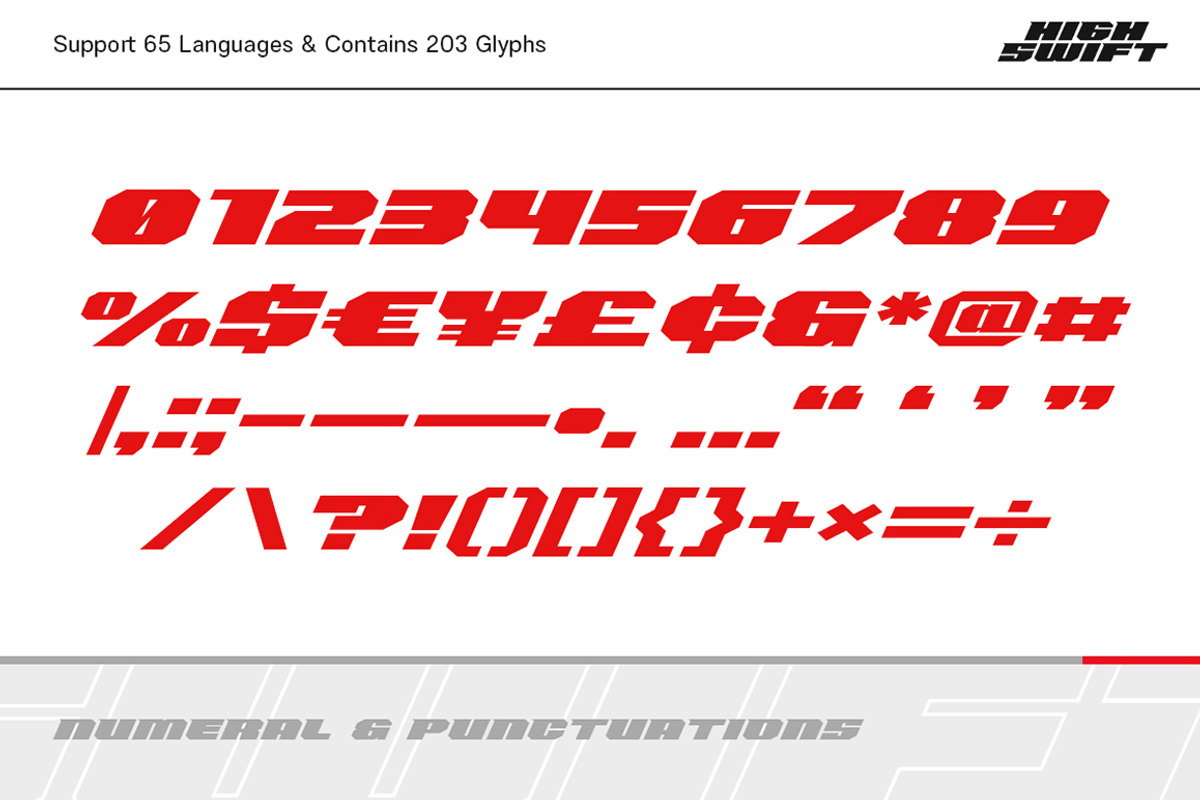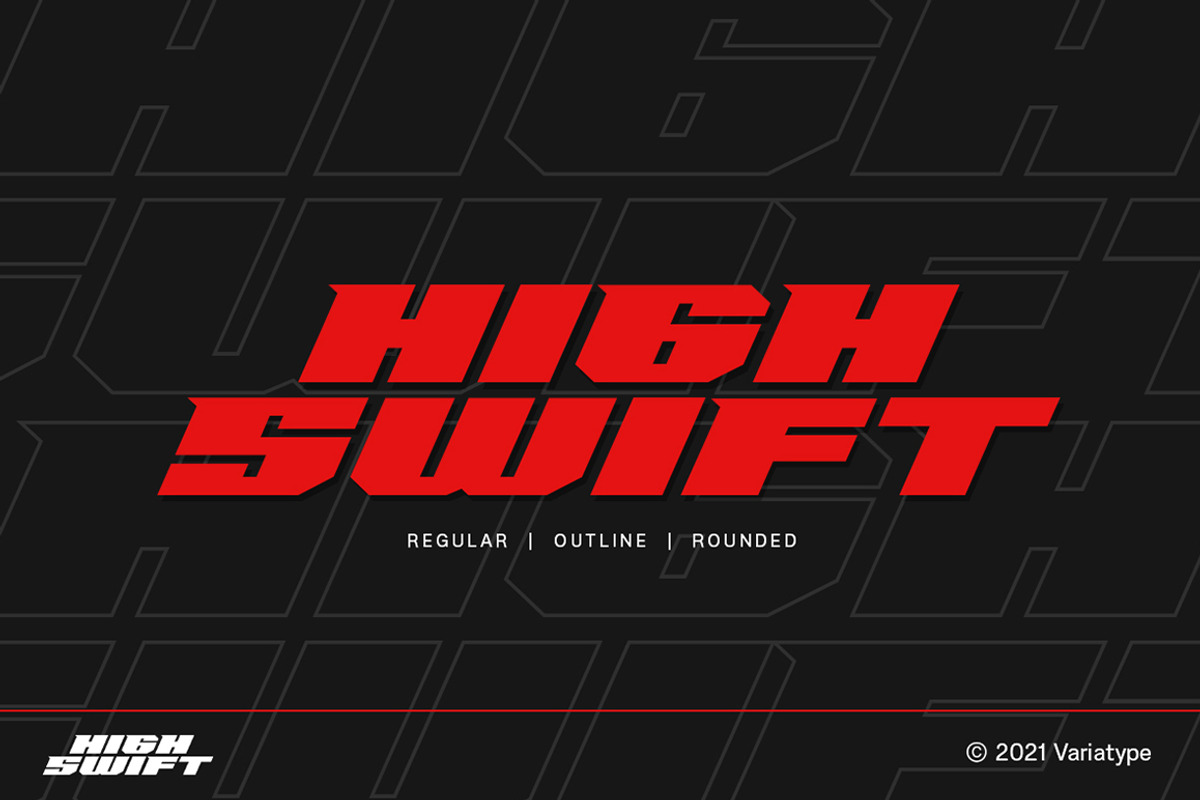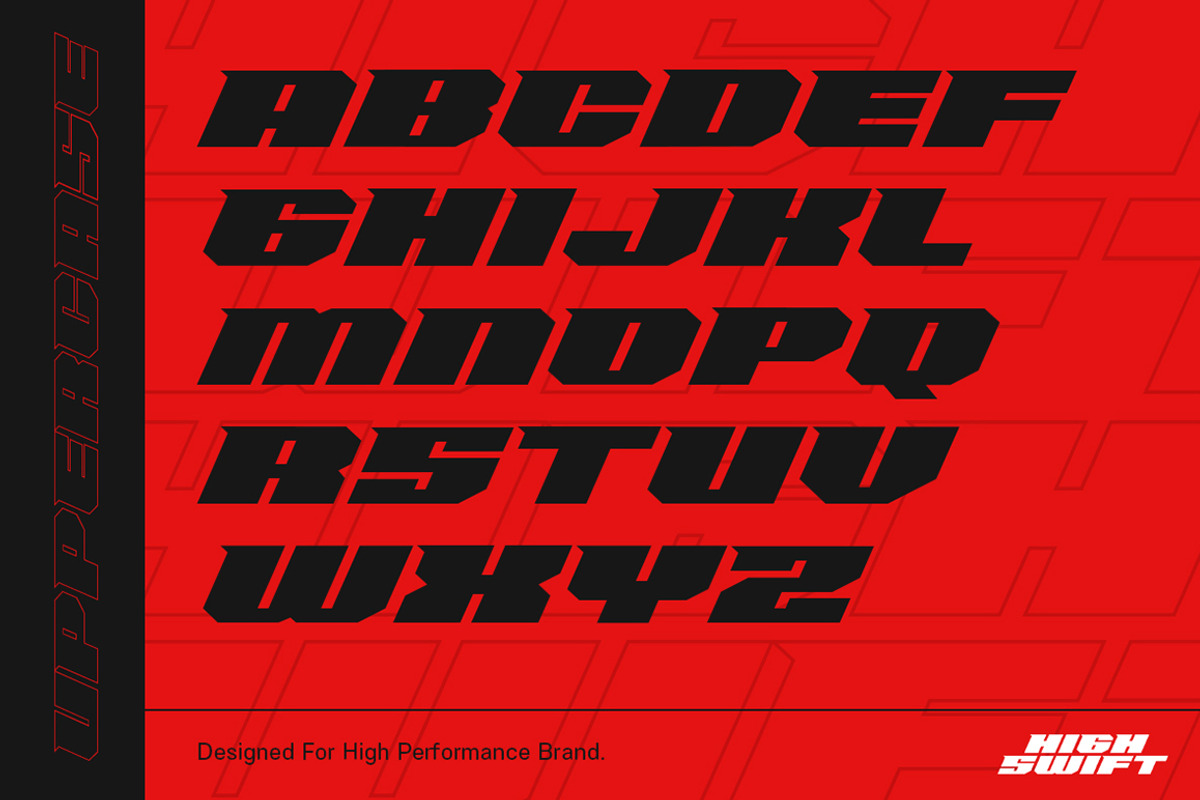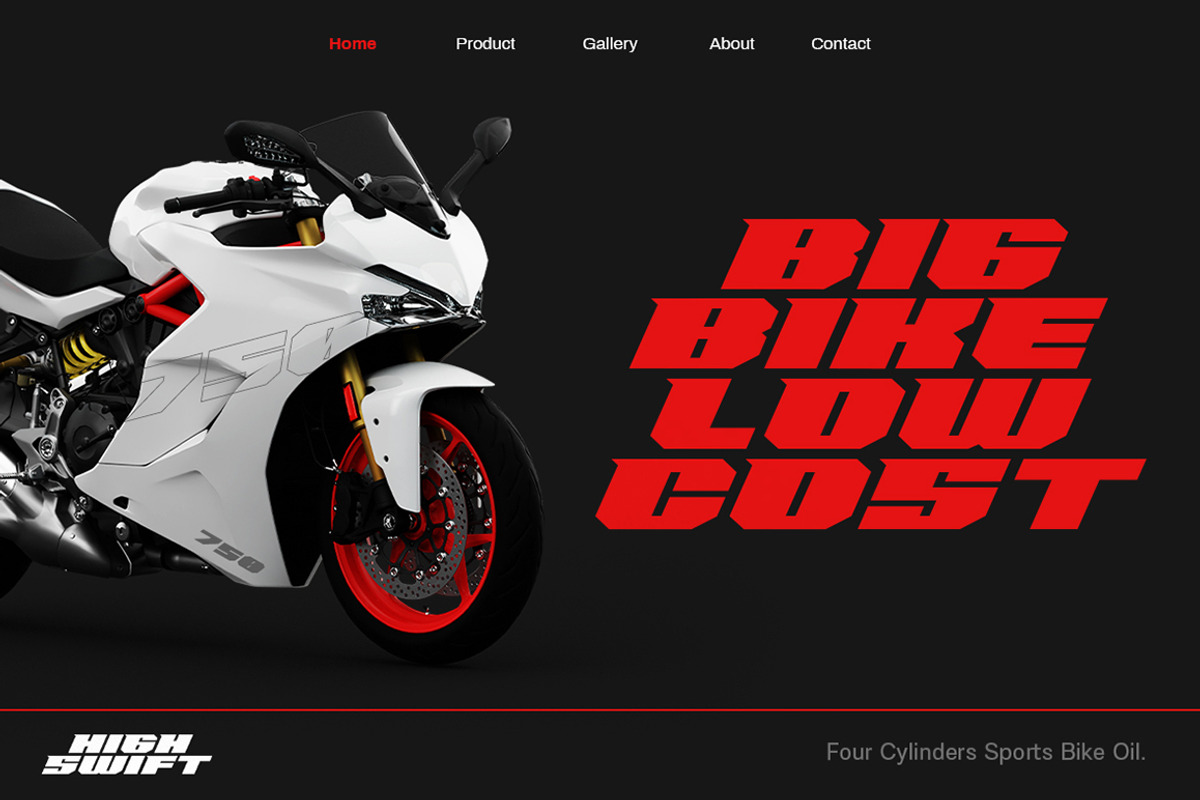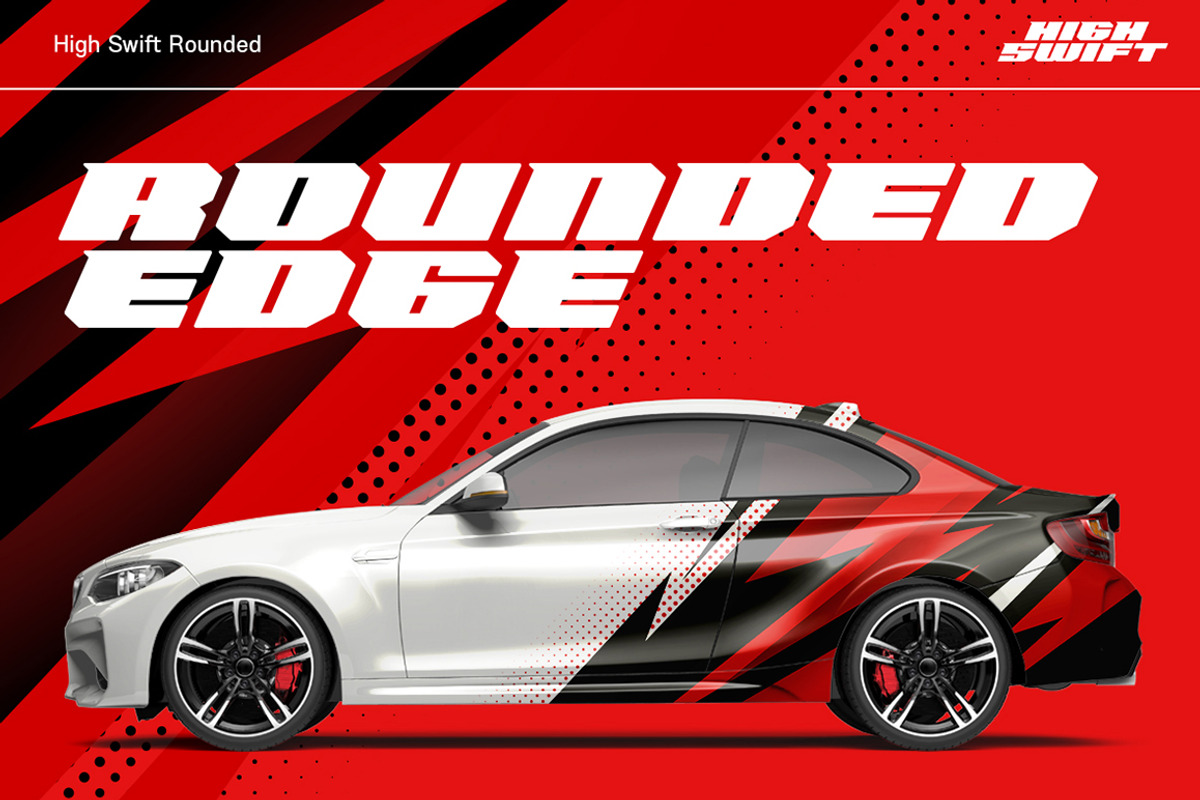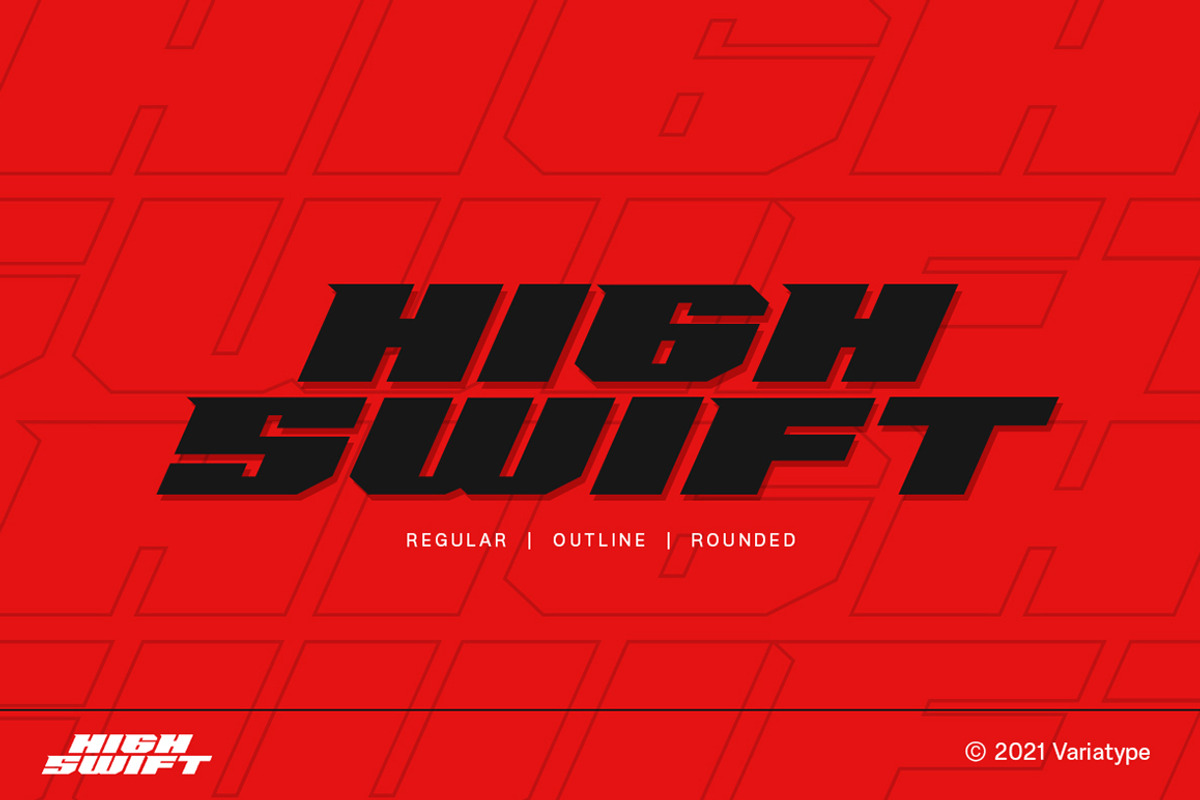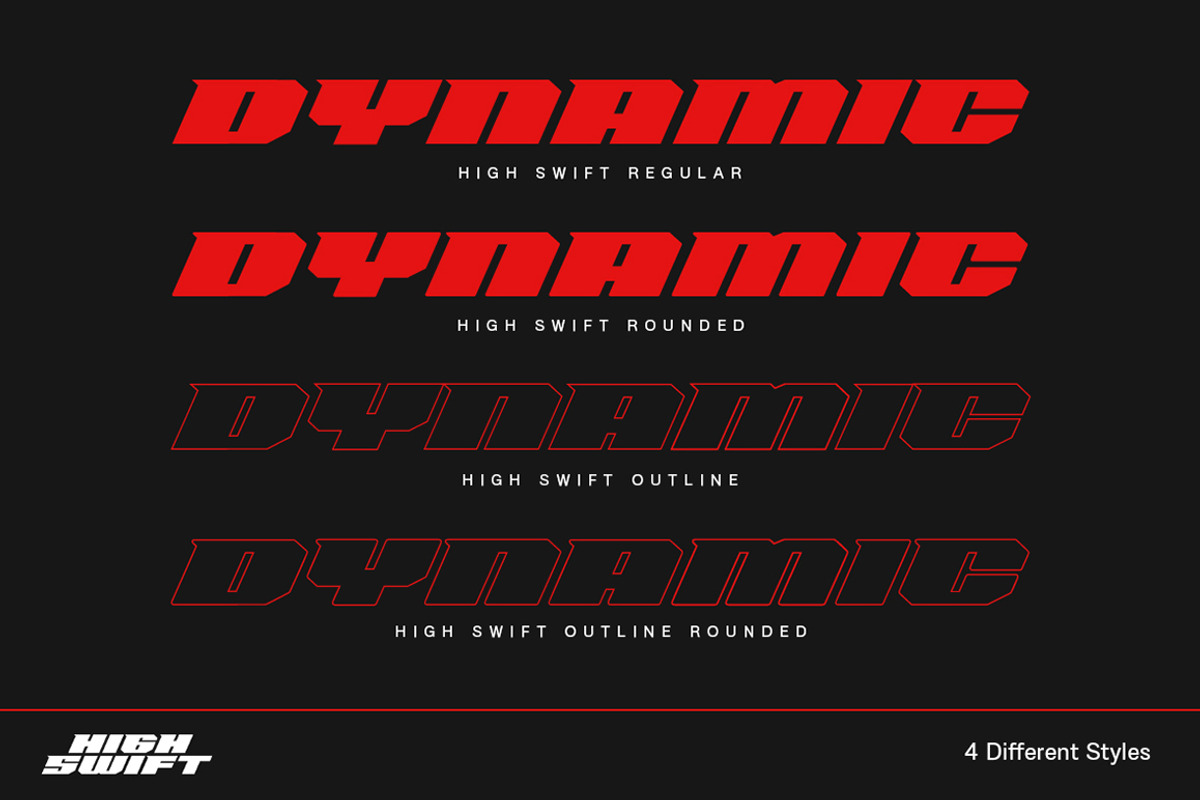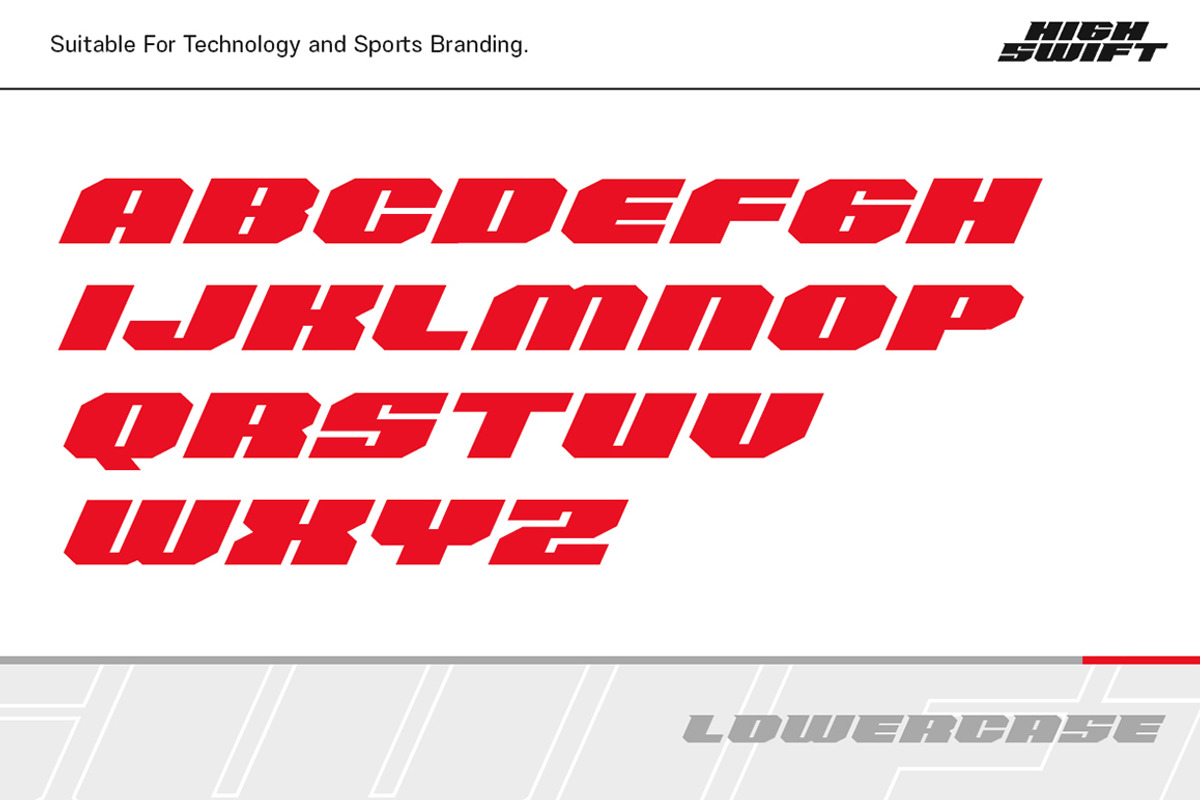
High Swift - Racing Font
High Swift is a sporty dynamics display font designed for powerful corporate branding, copy ads, logotype, and much more.
FONT FEATURES
Additional Accents
65 Languages